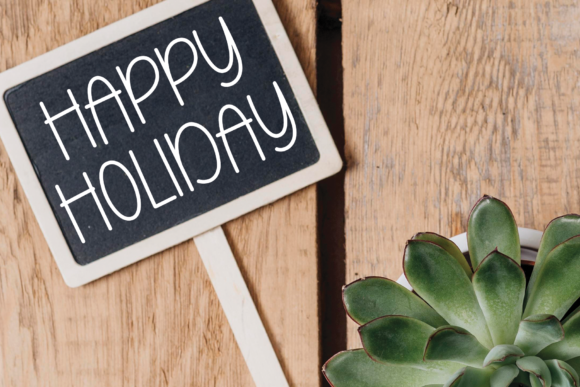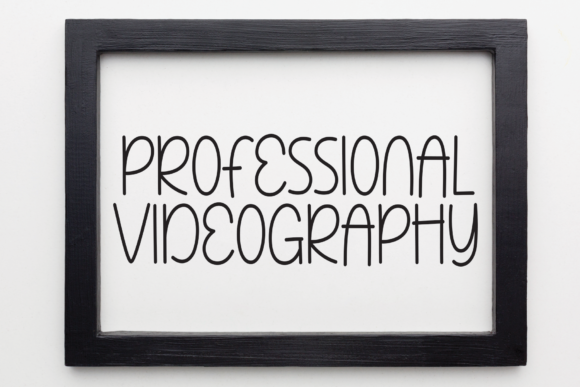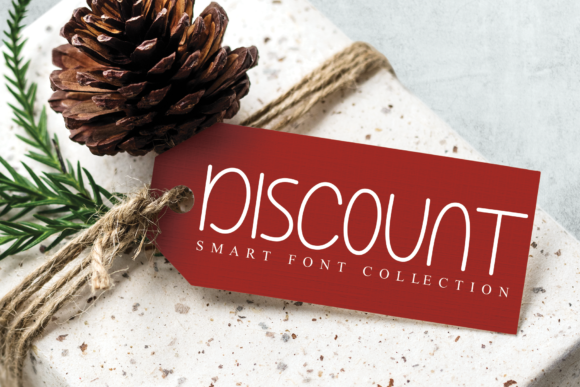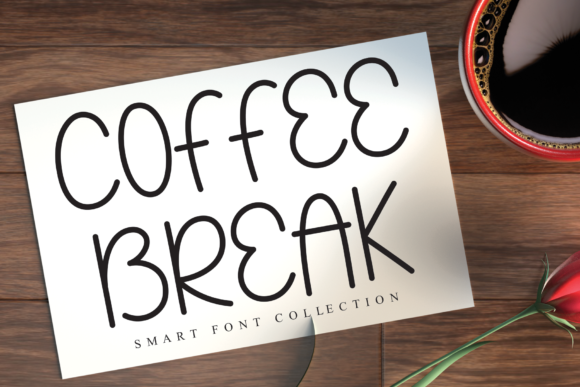
Discover the Charm of Arnhem Font: A Cute Handwritten Delight
Are you tired of using the same old fonts in your designs? Look no further than the Arnhem Font, a sweet and lively handwritten font that’s sure to add a touch of personality to your creations. With its unique blend of playfulness and sophistication, Arnhem is the perfect choice for designers and crafters looking to brighten up their work.
The Story Behind Arnhem Font
Arnhem Font is a carefully crafted handwritten font that’s designed to evoke a sense of joy and whimsy. Its creator, Astigmatic, is a renowned font foundry known for producing high-quality, unique typefaces. The inspiration behind Arnhem Font comes from the classic handwritten scripts of the past, with a modern twist that makes it perfect for contemporary designs.
What Makes Arnhem Font So Special?
So, what sets Arnhem Font apart from other fonts out there? Here are just a few of its standout features:
- Handwritten charm: Arnhem Font is a genuine handwritten font, with each letter carefully crafted to capture the imperfections and quirks of real handwriting.
- Sweet and lively: The font has a playful, upbeat feel that’s perfect for designs that need a bit of personality.
- Full of life: Arnhem Font is designed to add a touch of energy and movement to your designs, making it perfect for projects that need a bit of dynamism.
- Highly versatile: Whether you’re working on a logo, a poster, or a digital project, Arnhem Font is a great choice.
Use Cases for Arnhem Font
So, what kinds of projects is Arnhem Font best suited for? Here are a few ideas to get you started:
- Branding and logos: Arnhem Font’s unique blend of playfulness and sophistication makes it a great choice for logos and branding projects.
- Posters and flyers: The font’s bold, eye-catching style is perfect for posters and flyers that need to grab attention.
- Digital projects: Arnhem Font works beautifully in digital formats, from social media graphics to website headers.
- Crafting and DIY projects: If you’re a crafter or DIY enthusiast, Arnhem Font is a great choice for adding a personal touch to your projects.
Tips for Using Arnhem Font
Here are a few tips for getting the most out of Arnhem Font:
- Experiment with sizes: Arnhem Font looks great in a range of sizes, from small and delicate to large and bold.
- Play with colors: The font works beautifully in a range of colors, from bright and bold to soft and pastel.
- Mix and match: Try pairing Arnhem Font with other fonts to create a unique and eye-catching look.
In conclusion, Arnhem Font is a unique and charming handwritten font that’s perfect for designers and crafters looking to add a touch of personality to their work. With its sweet and lively style, high versatility, and range of use cases, Arnhem Font is a great choice for anyone looking to brighten up their designs. So why not give it a try and see the difference it can make?